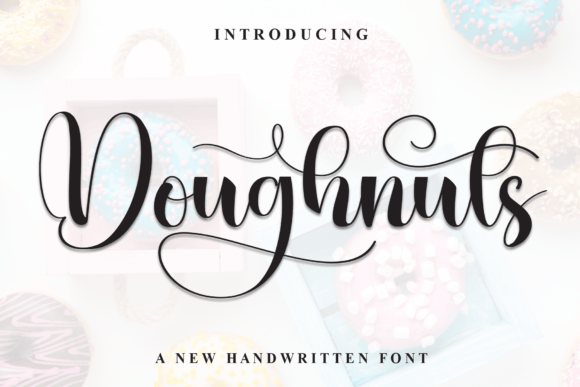
Doughnuts Font: The Sweetest Addition to Your Typography
Doughnuts Font is a stylish and incredibly elegant script font that has been making waves in the design community. Its unique blend of sophistication and playfulness makes it the perfect addition to any design project that requires a handwritten touch. In this article, we’ll dive into the world of Doughnuts Font, exploring its features, uses, and benefits, as well as provide tips on how to make the most of this beautiful font.
What is Doughnuts Font?
Doughnuts Font is a script font that boasts a distinctive, elegant look. Its fluid strokes and delicate lines evoke a sense of refinement and luxury, making it ideal for designs that require a touch of sophistication. Whether you’re working on a wedding invitation, a thank-you card, or a quote, Doughnuts Font is sure to impress.
Key Features of Doughnuts Font
- Elegant Script Style: Doughnuts Font features a beautiful, flowing script style that’s perfect for adding a touch of elegance to your designs.
- Handwritten Touch: This font’s unique, handwritten feel makes it perfect for designs that require a personal touch.
- Versatile: Doughnuts Font can be used for a wide range of design projects, from wedding invitations to business cards.
- Easy to Read: Despite its elegant style, Doughnuts Font is surprisingly easy to read, making it perfect for longer texts.
Uses of Doughnuts Font
Doughnuts Font is an incredibly versatile font that can be used for a wide range of design projects. Here are some of the most popular uses for this beautiful font:
Popular Use Cases for Doughnuts Font
- Wedding Invitations: Doughnuts Font is a popular choice for wedding invitations, adding a touch of elegance and sophistication to your big day.
- Thank-You Cards: This font is also perfect for thank-you cards, allowing you to express your gratitude in style.
- Quotes: Doughnuts Font is a great choice for quotes, adding a touch of elegance to your inspirational words.
- Greeting Cards: Whether you’re creating a birthday card or a holiday greeting, Doughnuts Font is sure to impress.
- Logos: This font can also be used to create stunning logos that showcase your brand’s personality.
- Business Cards: Add a touch of elegance to your business cards with Doughnuts Font.
Benefits of Using Doughnuts Font
Doughnuts Font offers a range of benefits that make it a popular choice among designers. Here are some of the key advantages of using this beautiful font:
Why Choose Doughnuts Font?
- Unique Style: Doughnuts Font offers a unique, elegant style that’s sure to set your designs apart.
- Easy to Use: This font is incredibly easy to use, even for those with limited design experience.
- Versatile: Doughnuts Font can be used for a wide range of design projects, making it a great addition to your font library.
- High-Quality: This font is of exceptionally high quality, ensuring that your designs look professional and polished.
Tips for Using Doughnuts Font
To get the most out of Doughnuts Font, here are some tips to keep in mind:
Make the Most of Doughnuts Font
- Use it Sparingly: While Doughnuts Font is beautiful, it can be overwhelming if used too much. Use it sparingly to add a touch of elegance to your designs.
- Pair it with Other Fonts: Experiment with pairing Doughnuts Font with other fonts to create a unique look.
- Adjust the Size: Don’t be afraid to adjust the size of Doughnuts Font to create visual interest in your designs.
- Experiment with Colors: Try out different colors with Doughnuts Font to add an extra layer of depth to your designs.
Doughnuts Font is a beautiful, elegant script font that’s perfect for adding a touch of sophistication to your designs. Its unique style, versatility, and ease of use make it a great addition to any font library. Whether you’re working on a wedding invitation, a thank-you card, or a quote, Doughnuts Font is sure to impress. So why not give it a try and see the difference it can make in your designs?